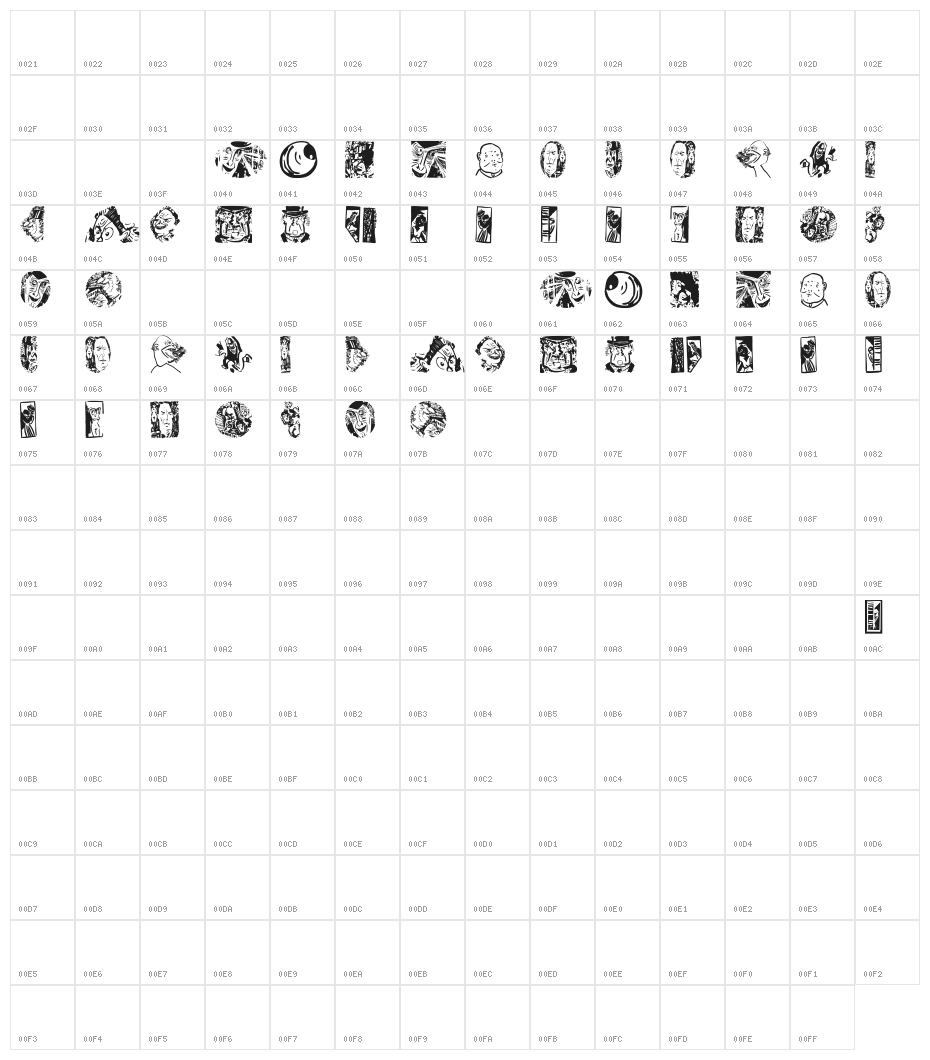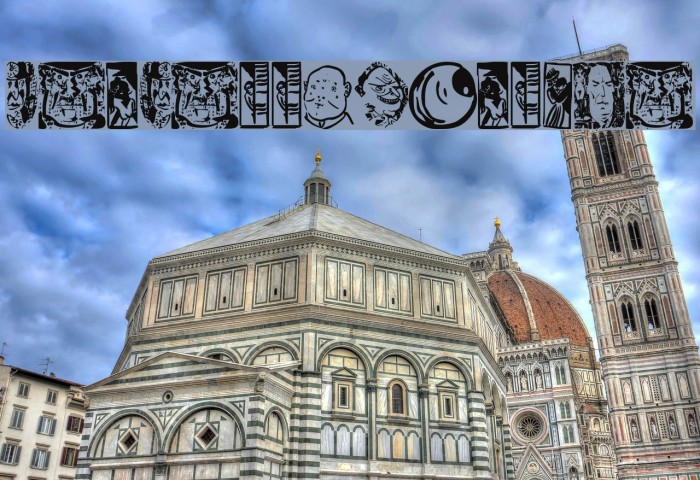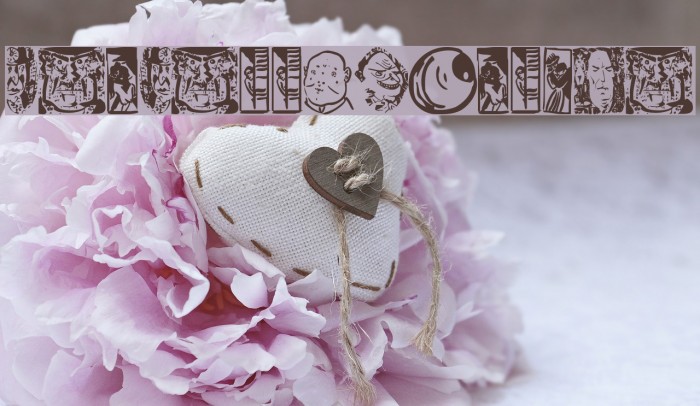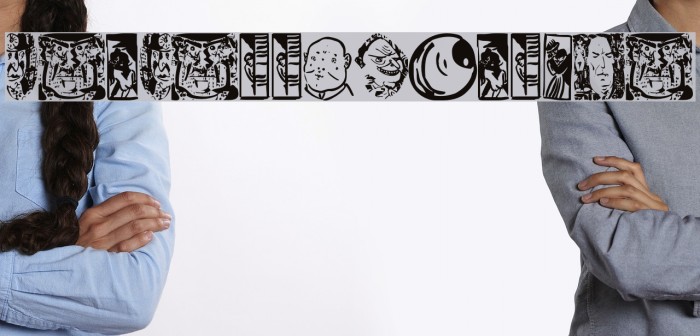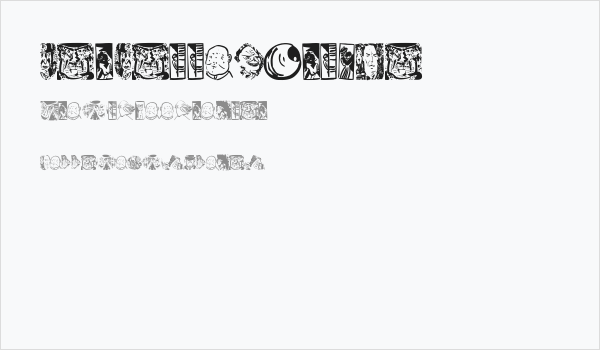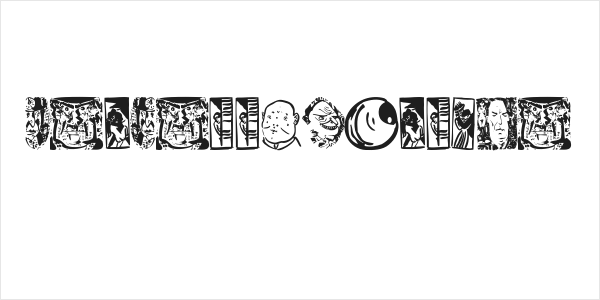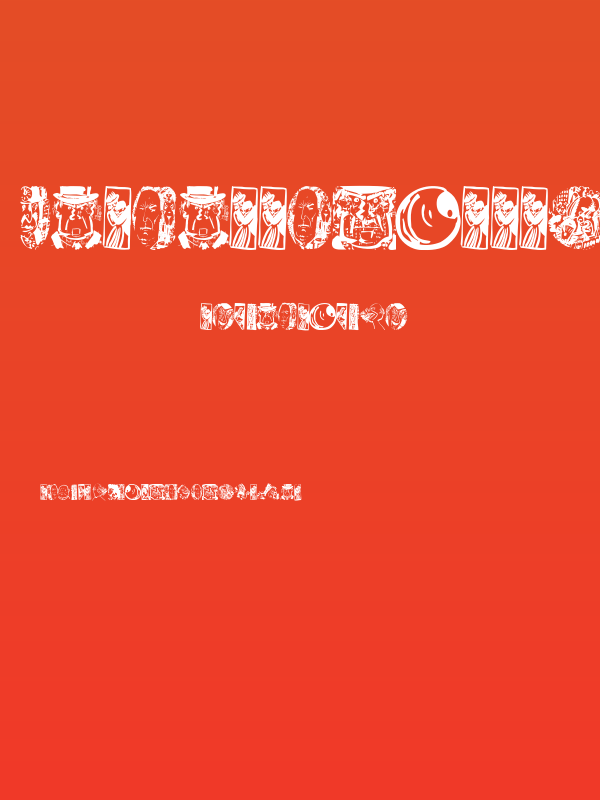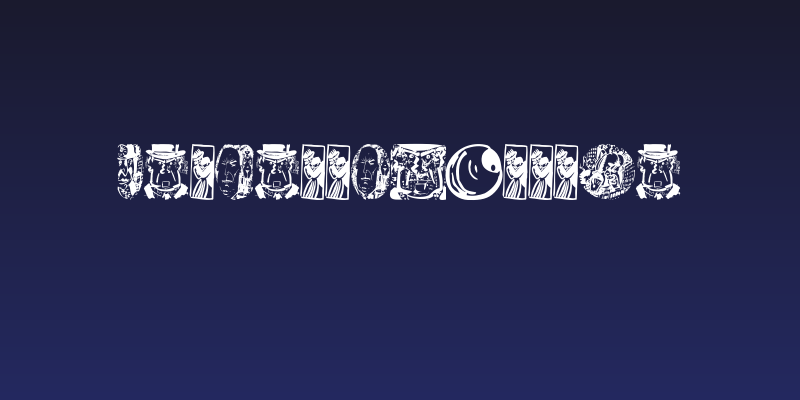
ForgottenArtTwo Font
ForgottenArtTwo Description
This font is a highly decorative and artistic typeface, featuring intricate illustrations within each character. Each letter and number is uniquely designed with detailed, expressive faces and figures, creating a visually engaging and complex appearance. The style is reminiscent of graphic novels or comic art, with bold lines and a high level of detail. The characters are filled with various artistic elements, making them stand out individually while maintaining a cohesive overall look. This font is not suitable for body text due to its complexity but serves as a striking choice for creative projects that require a bold visual statement.
| Overall Style | Artistic, Decorative |
| Use Case | Headlines, Logos, Artistic projects |
| Proposed Projects | Ideal for graphic novels, comic book titles, artistic posters, and creative branding projects. |